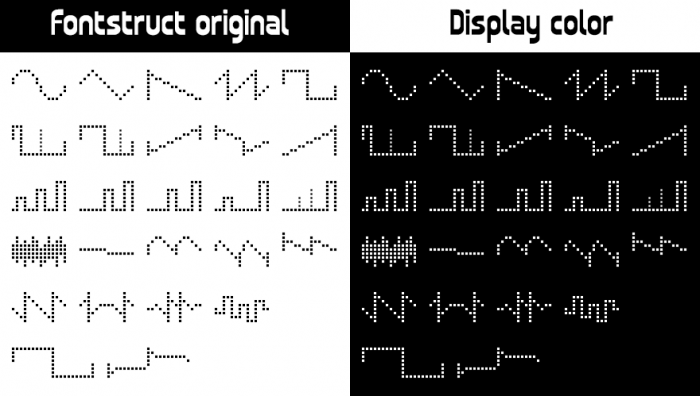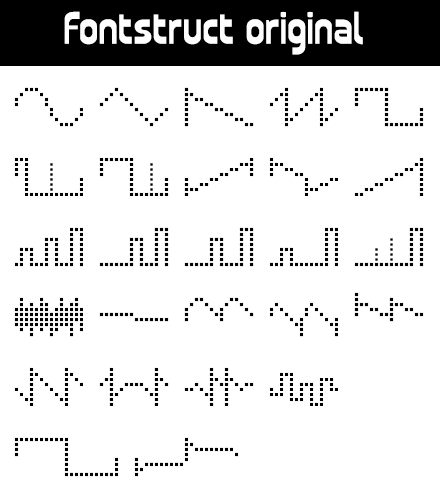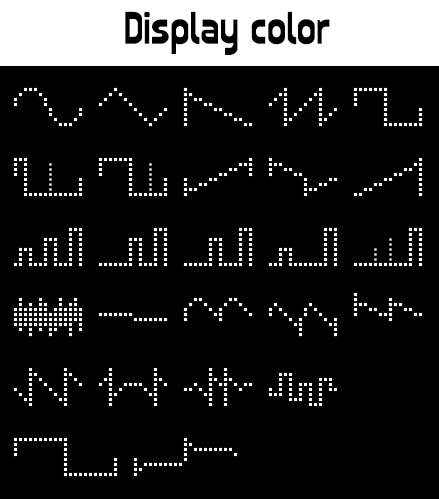
• STF_OSC-WAVE CYCLES — Pixelated dingbat pictographs
Over the last two-and-a-half years or so I've excesively been working on this large DIY undertaking, and has been quietly in the making since. This is the development of a custom‒built 17-part hybrid analog/digital multi-synthesis engine and hardware controller.
The main operating system (OS) architecture is assembled for Teensy 4.1 32-bit ARM‒based Cortex M7 (MCU — microcontroller unit). GUI interface is running a Library to control basic graphical functions for 128×64 multi-color LED‒backlit DOT matrix LCD display module. This specifically sets interface pixel grid to 128×64‒sized ratio. Important in understanding the area in which creative decisions are made — required for coding and performed size-check of elements of all screen elements, since pixel‒perfect, in this case is the norm.
This is a set of pixelated dingbat pictographs, consisting of various waveform representations that illustrate periodic function cycles in signal processing, more specifically, sound-synthesis. Intended to supplement a collection of bitmap fonts that eventually will be designed.
Adding multiple tailor-made bitmap fonts — specifically the number of size-interpolation steps for font‒scalability, the different style fonts and additional dingbat sets to further establish various identities of the different GUI-components for now, is one still in ongoing trial-and-error testing.
Cool!
@Sed4tives - What a fascinating project.  Congratulations!  :^)
Looks good,in one sample display color,but with your font cloned to make music font
But can´t,thats OK! Not problem
Amazing, compa!
These are some GUI interface idea's. some screen elements, and the first bitmap font.
great, now you're back